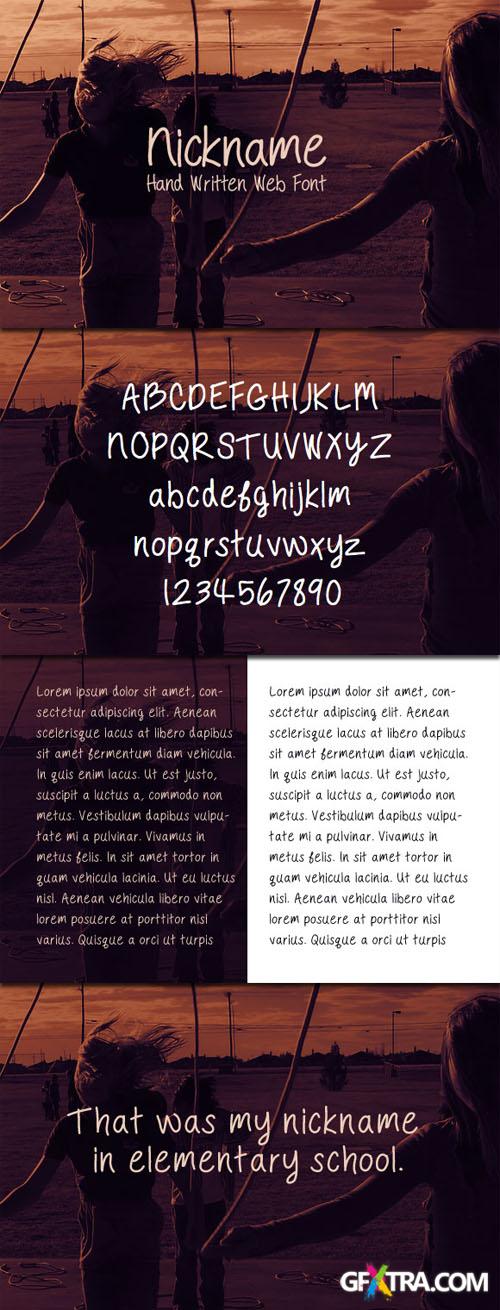
WeGraphics - Nickname ? Handwriting Web Font
Nickname is a very clean and simple handwritten font face. All of the necessary files are included to use this font in your next web design.